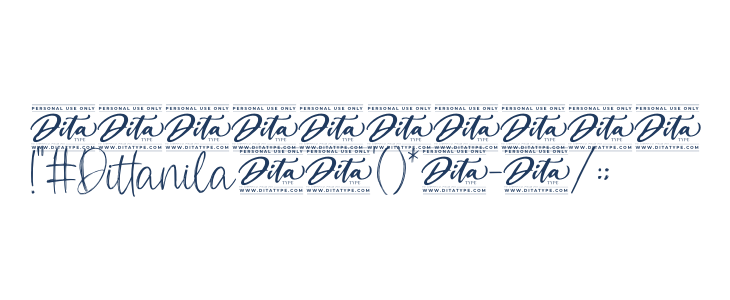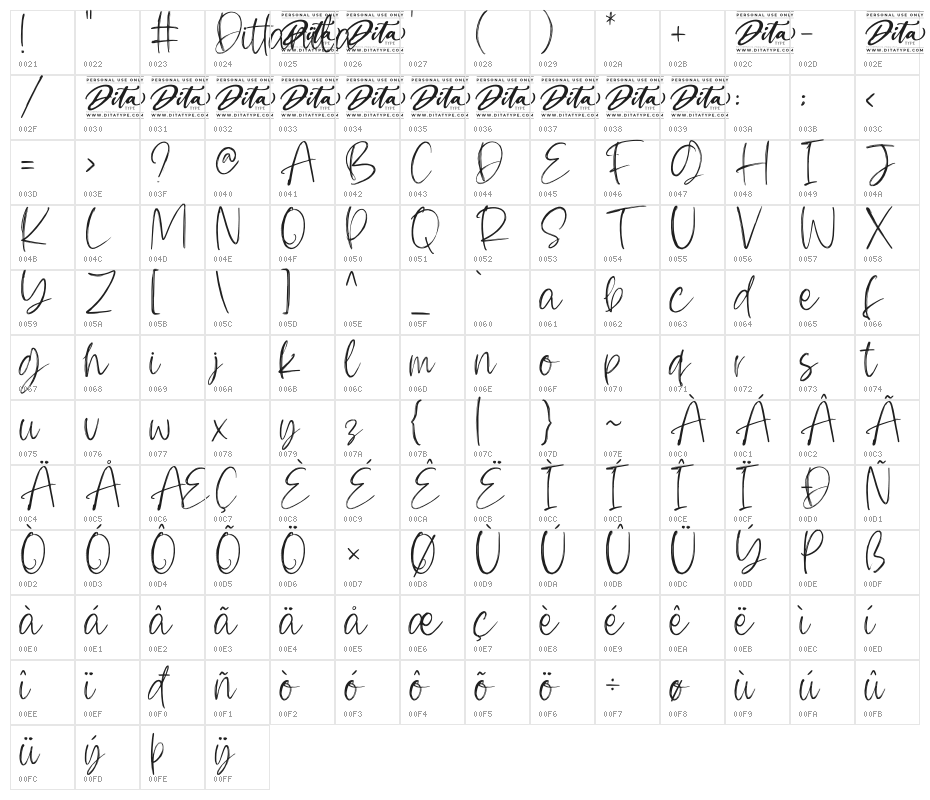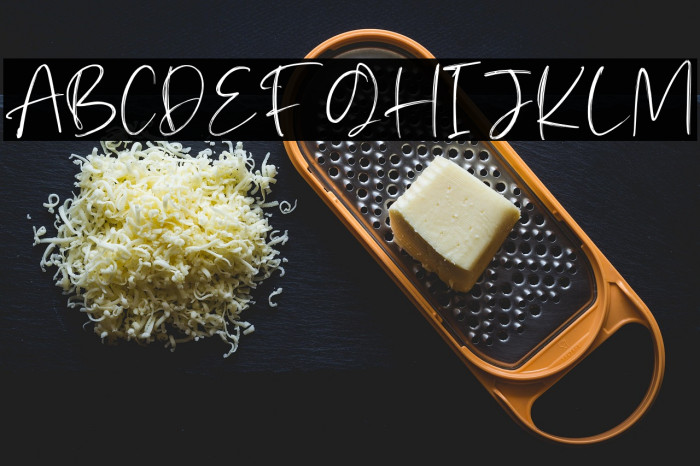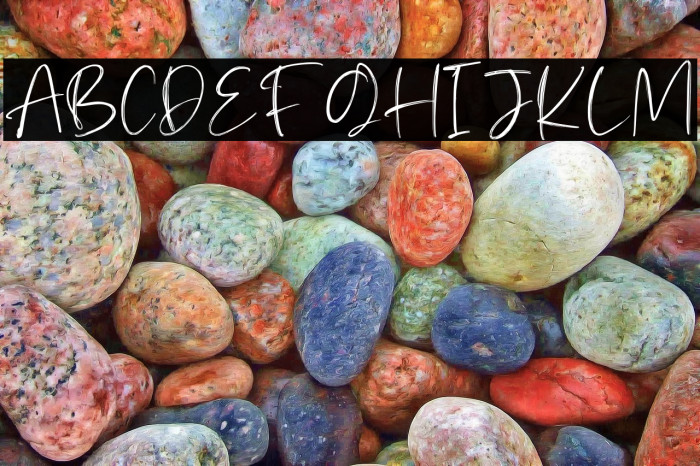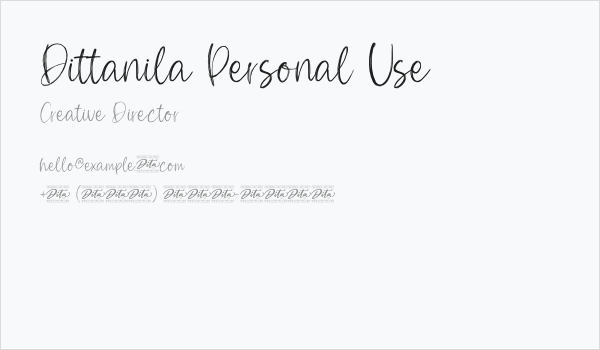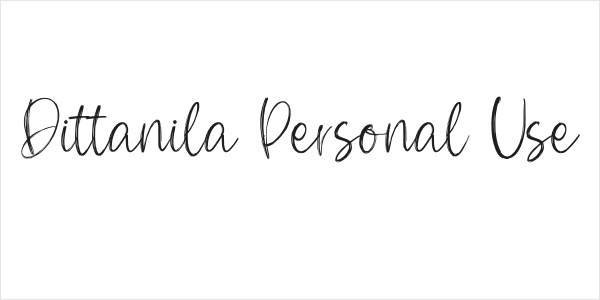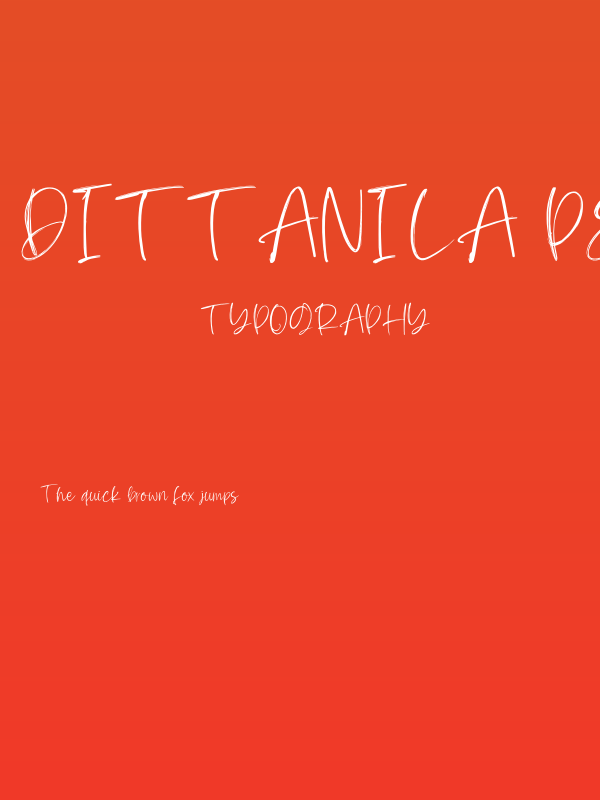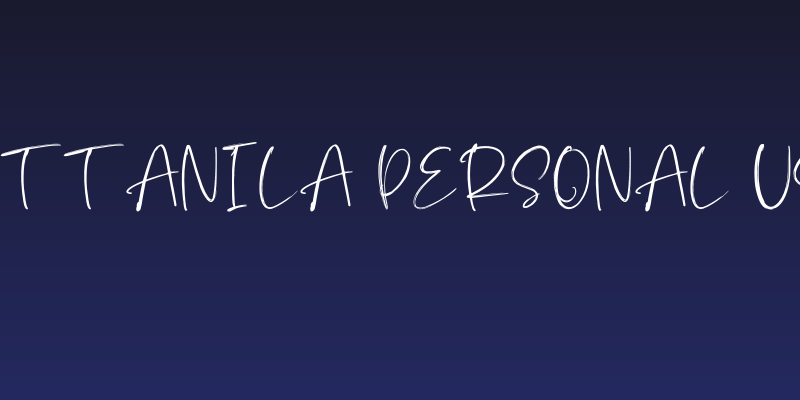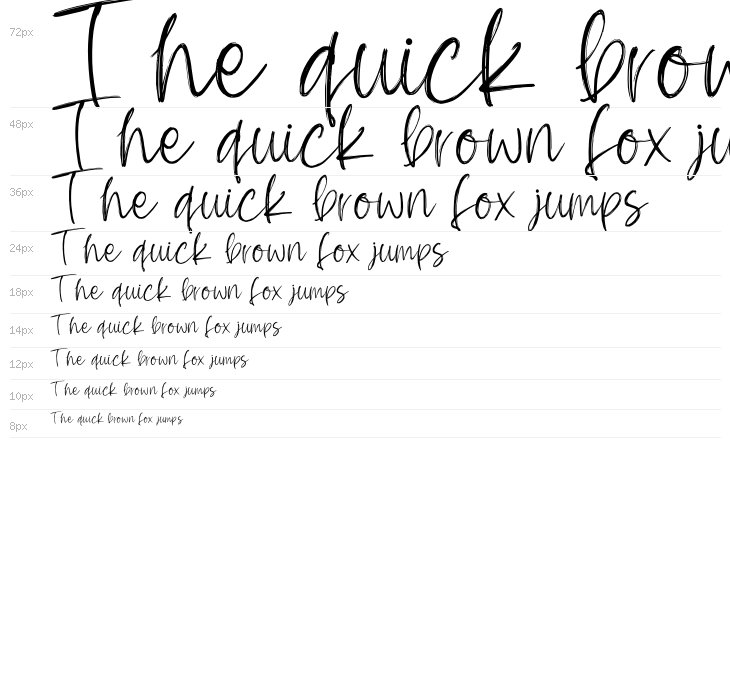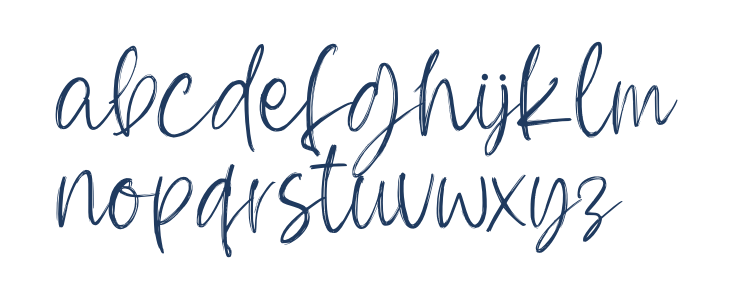
Dittanila Personal Use Font
Dittanila Personal Use Description
This font exhibits a lively and expressive handwritten style, characterized by its fluid and dynamic strokes. The uppercase letters are bold and slightly irregular, giving a sense of spontaneity and energy. The lowercase letters maintain a consistent flow, with some letters featuring loops and swashes that enhance its artistic appeal. The numerals and special characters are crafted with the same attention to detail, ensuring a cohesive look across all glyphs. This font's playful yet elegant nature makes it suitable for creative and personal projects.
| Use Case | Logos, Headlines, Personal projects |
| Proposed Projects | Ideal for greeting cards, invitations, personal branding, and artistic projects. |